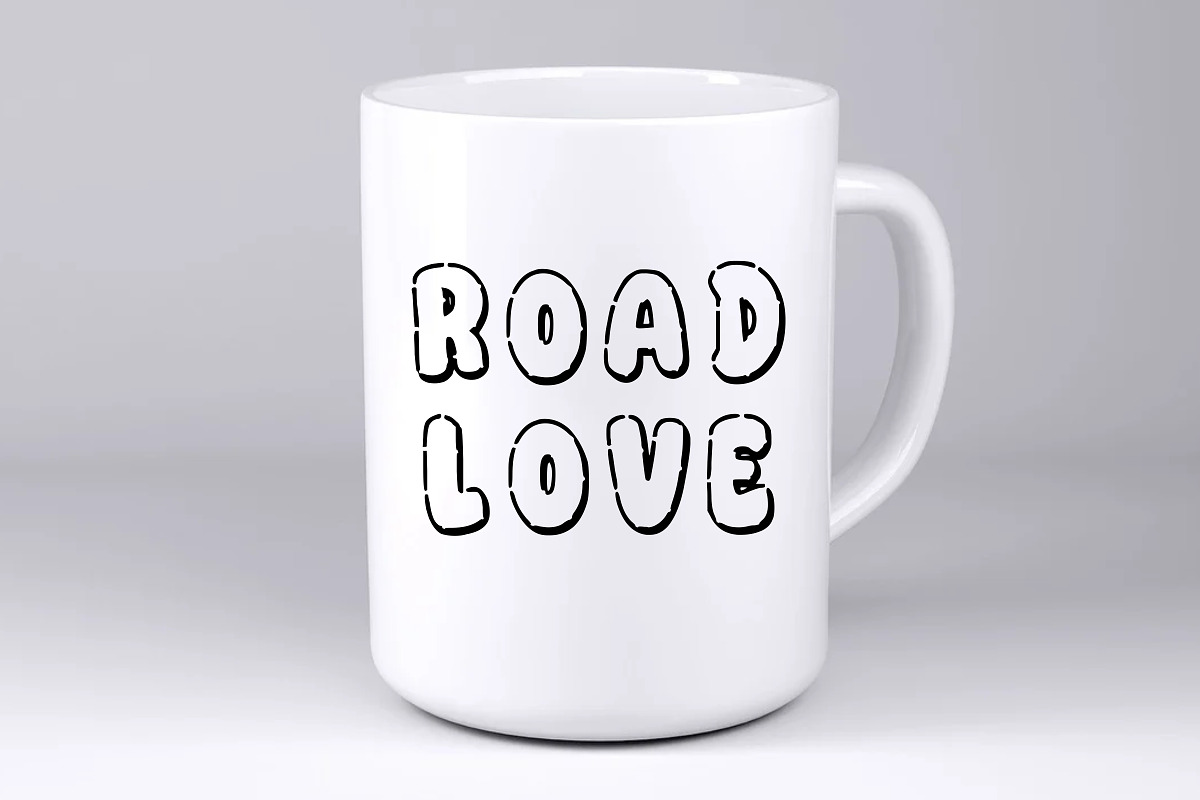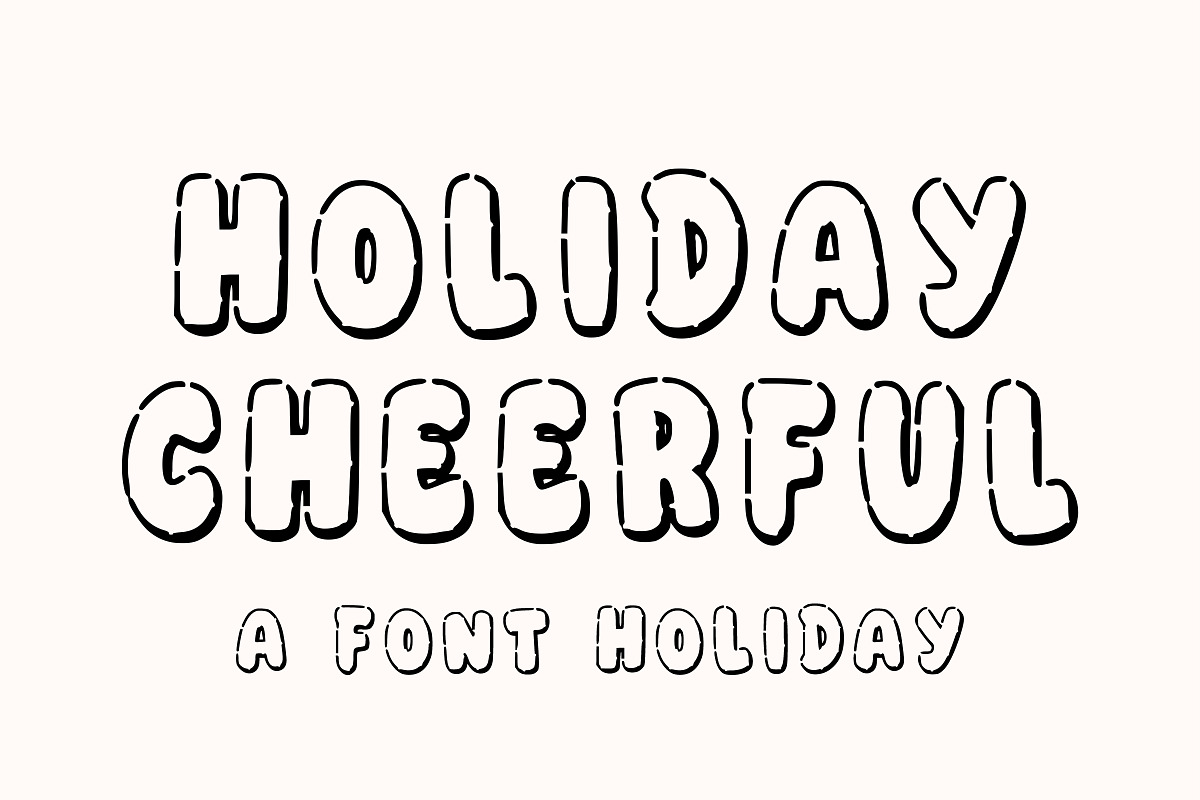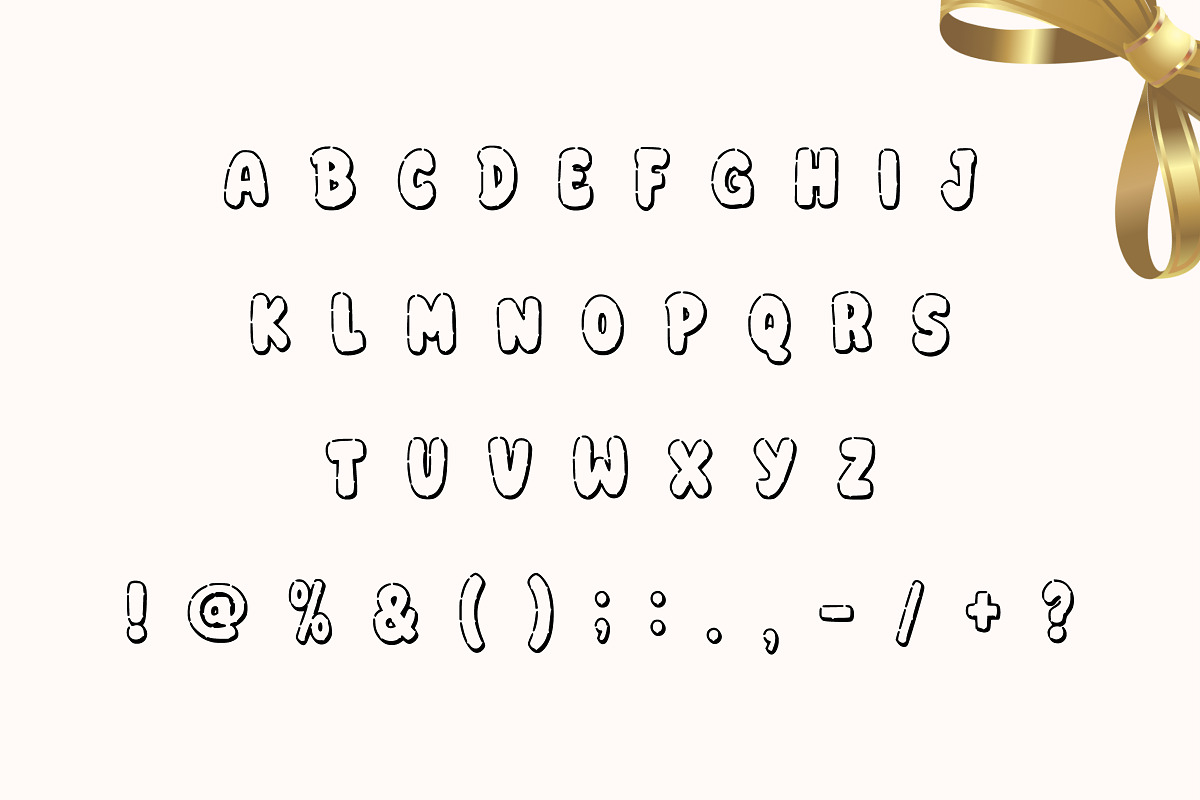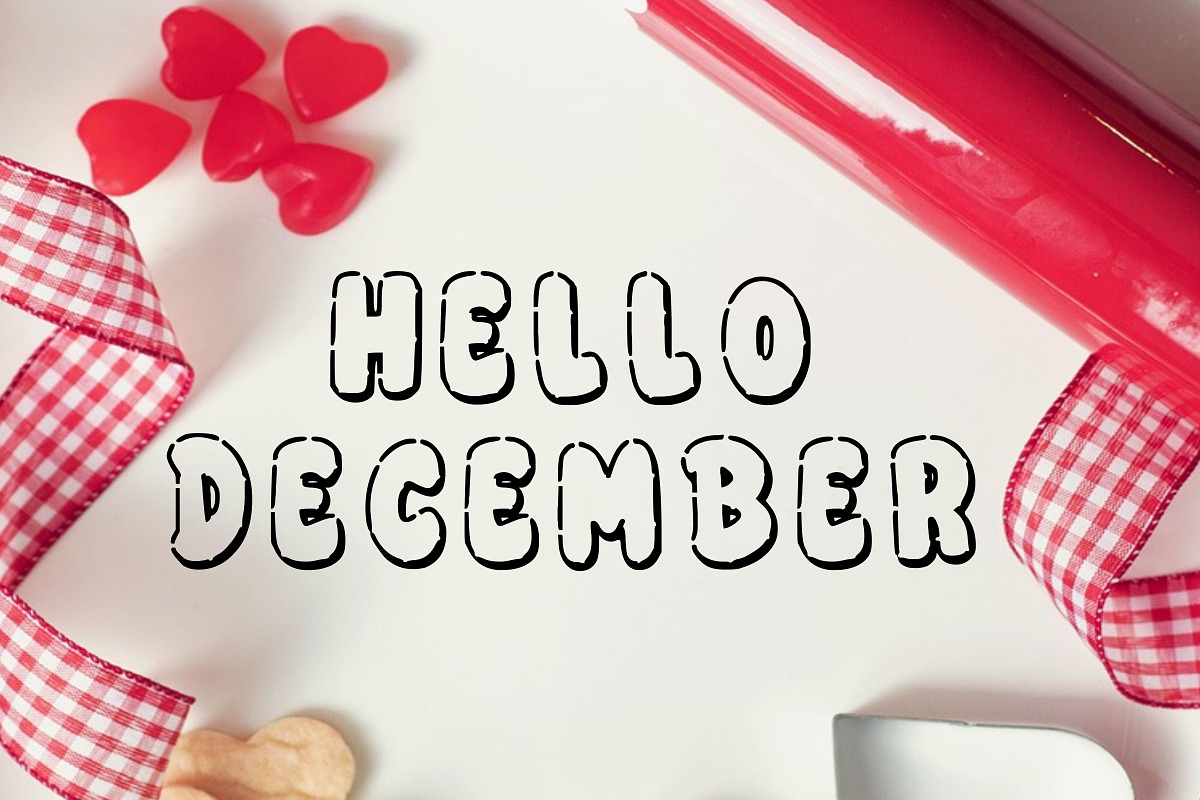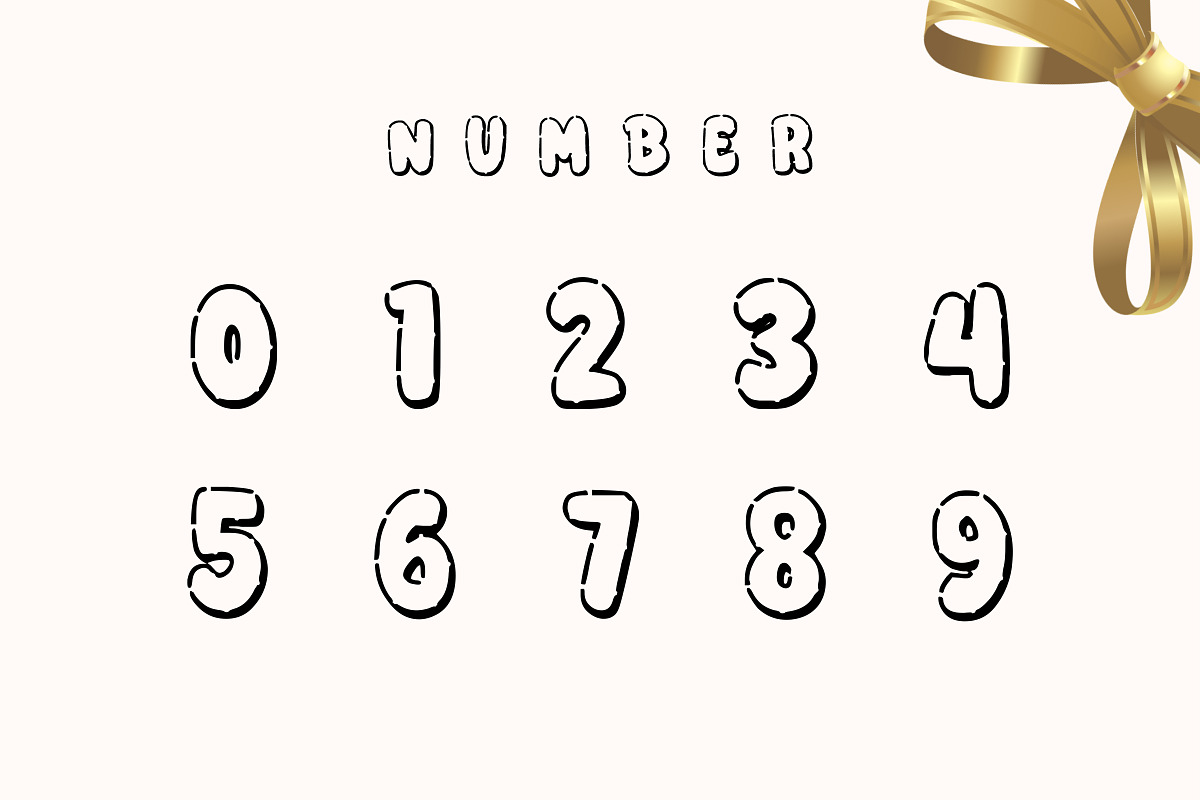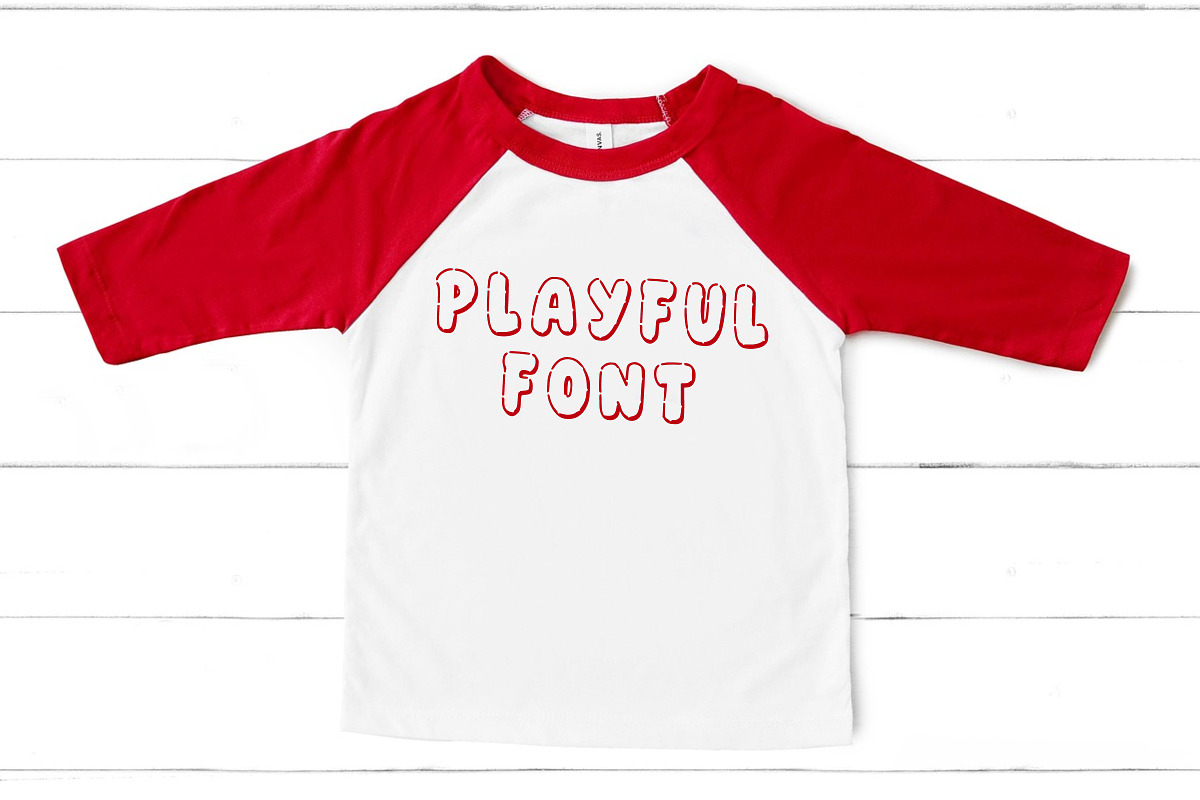
Holiday Cheerful
Holiday Cheerful a chunky, bold outline display font that delivers a playful, seasonal feel perfect for holiday projects.
This delightful Holiday Cheerful typeface features thick, rounded letterforms designed in a captivating 3D outline style that invites coloring and layering, offering creative versatility. The bold, all-caps structure ensures high visibility, making it an excellent headline or title font for seasonal promotions and events.